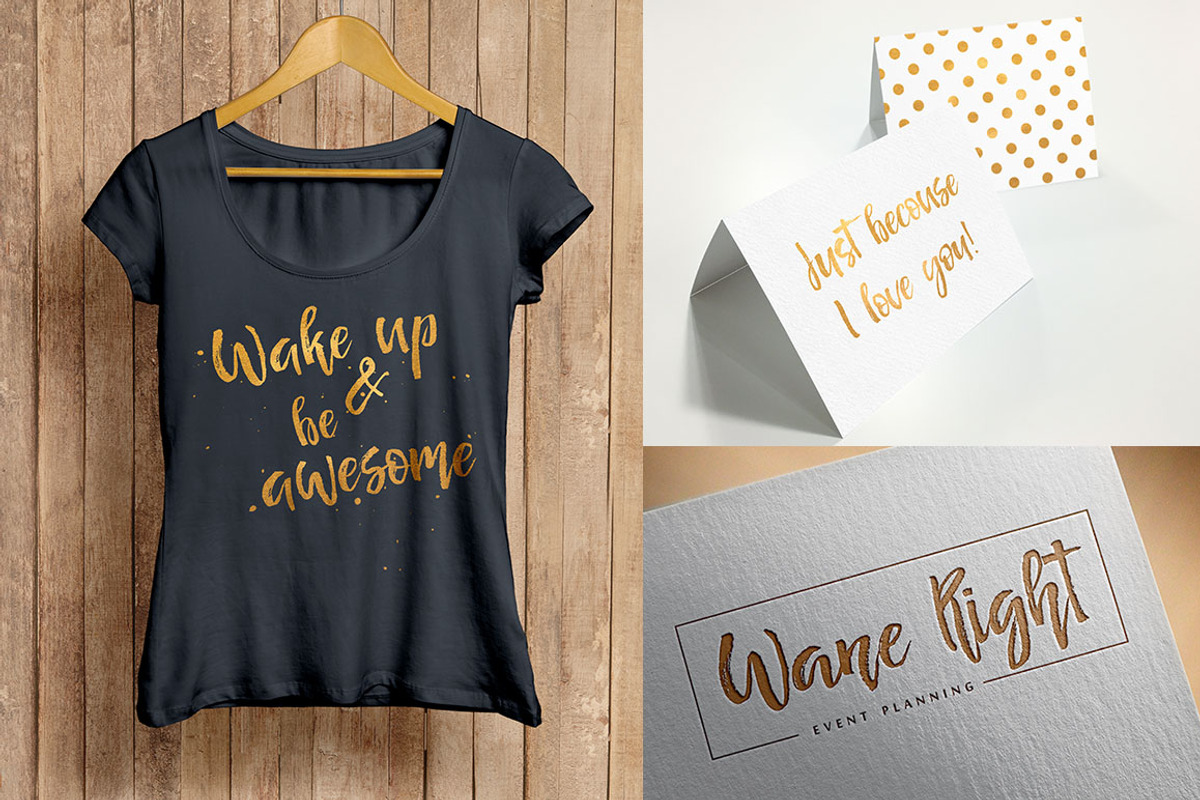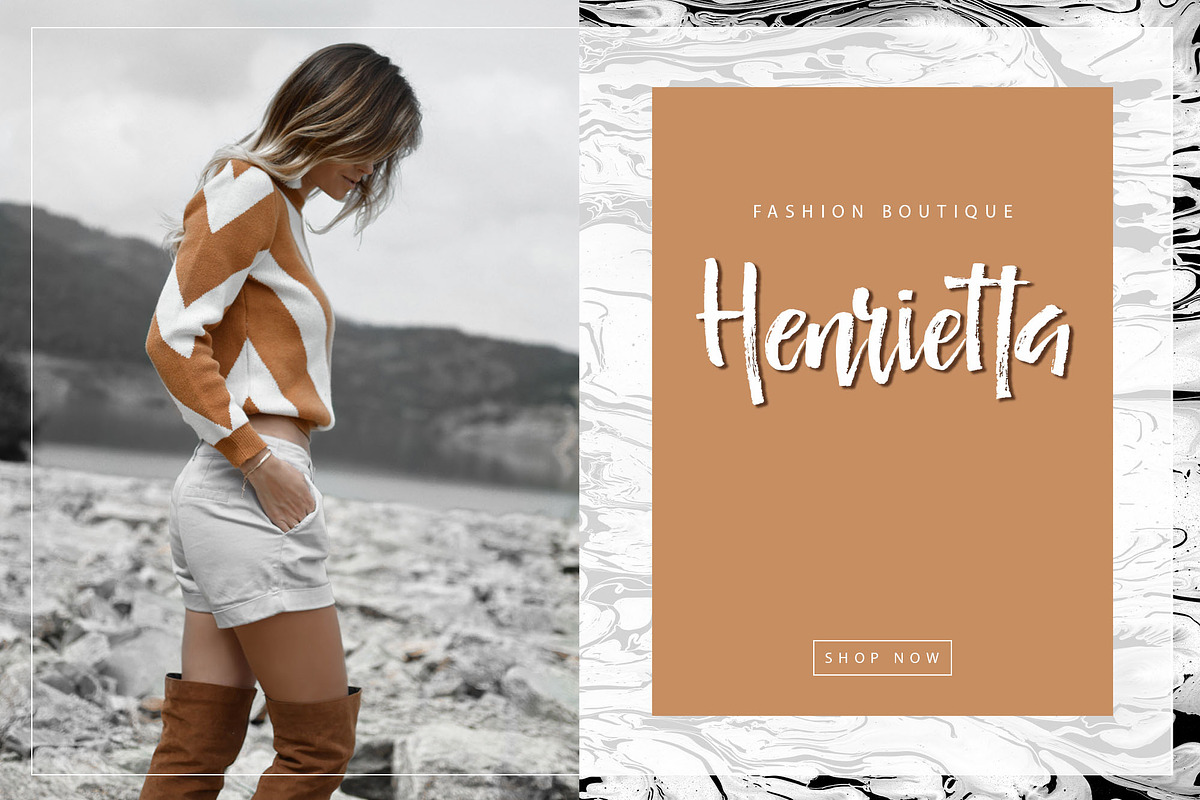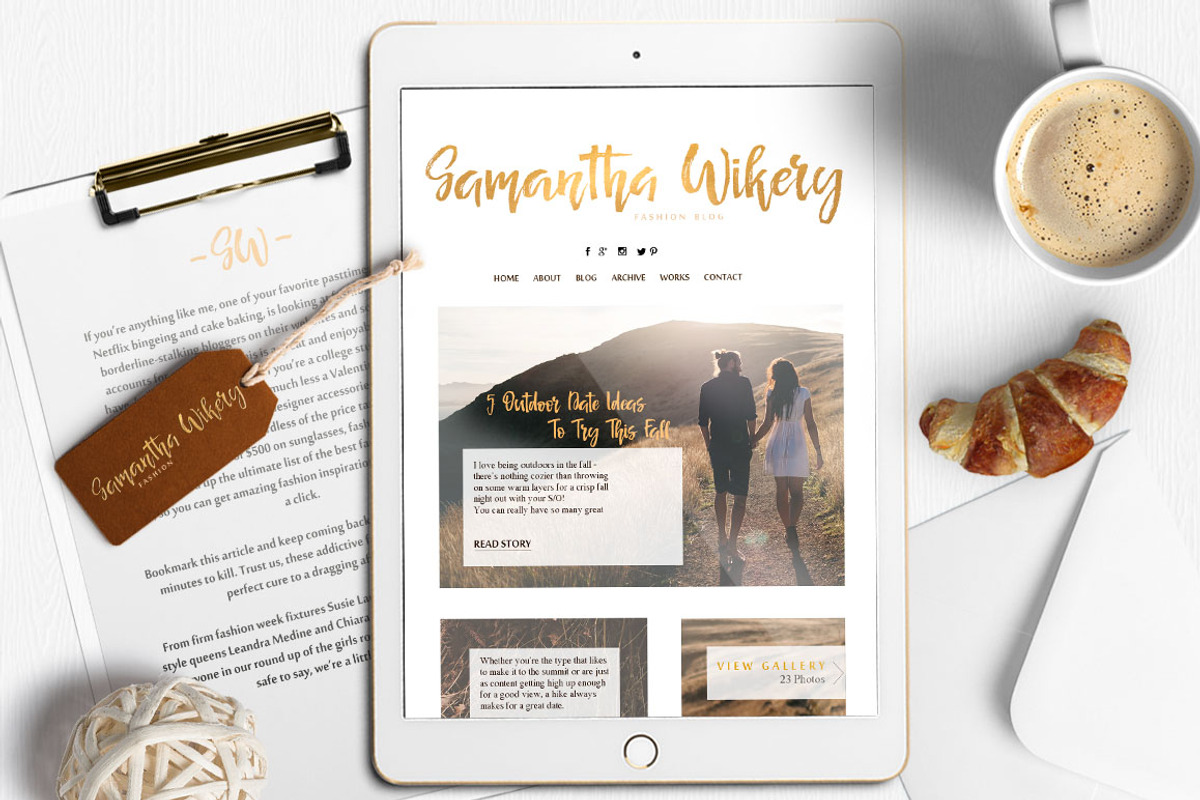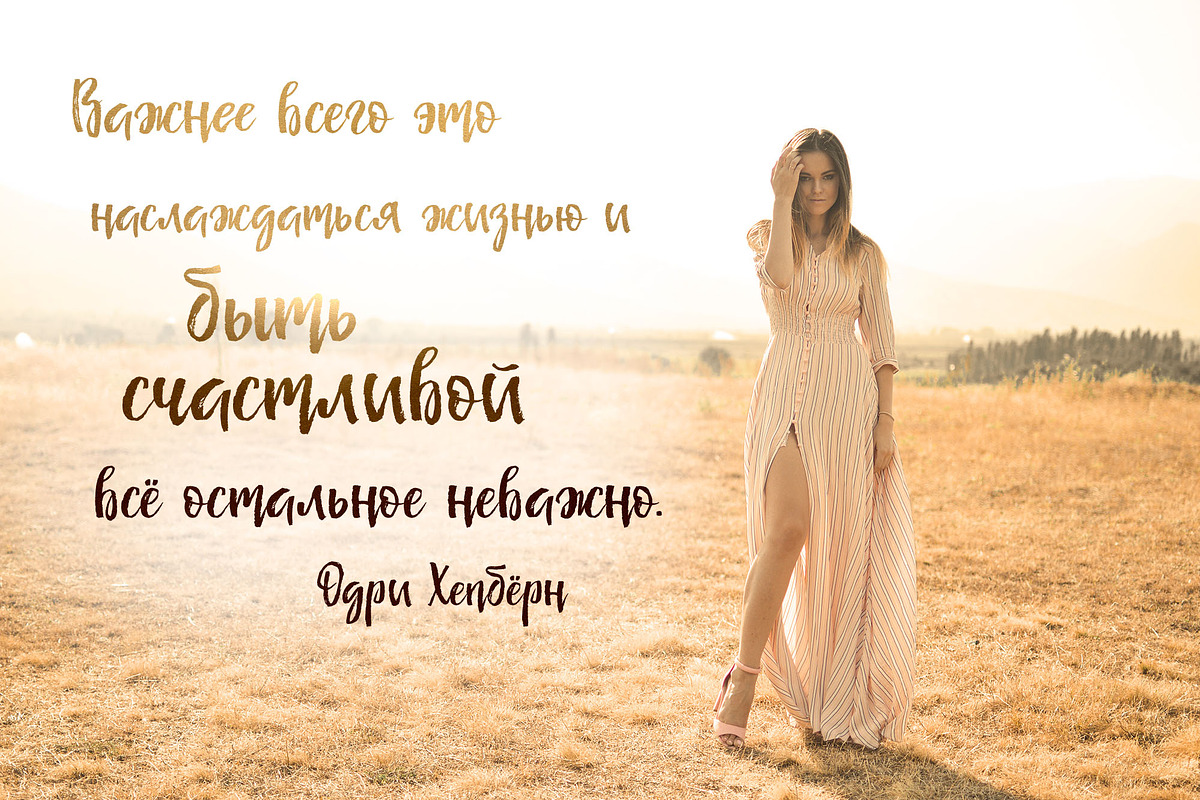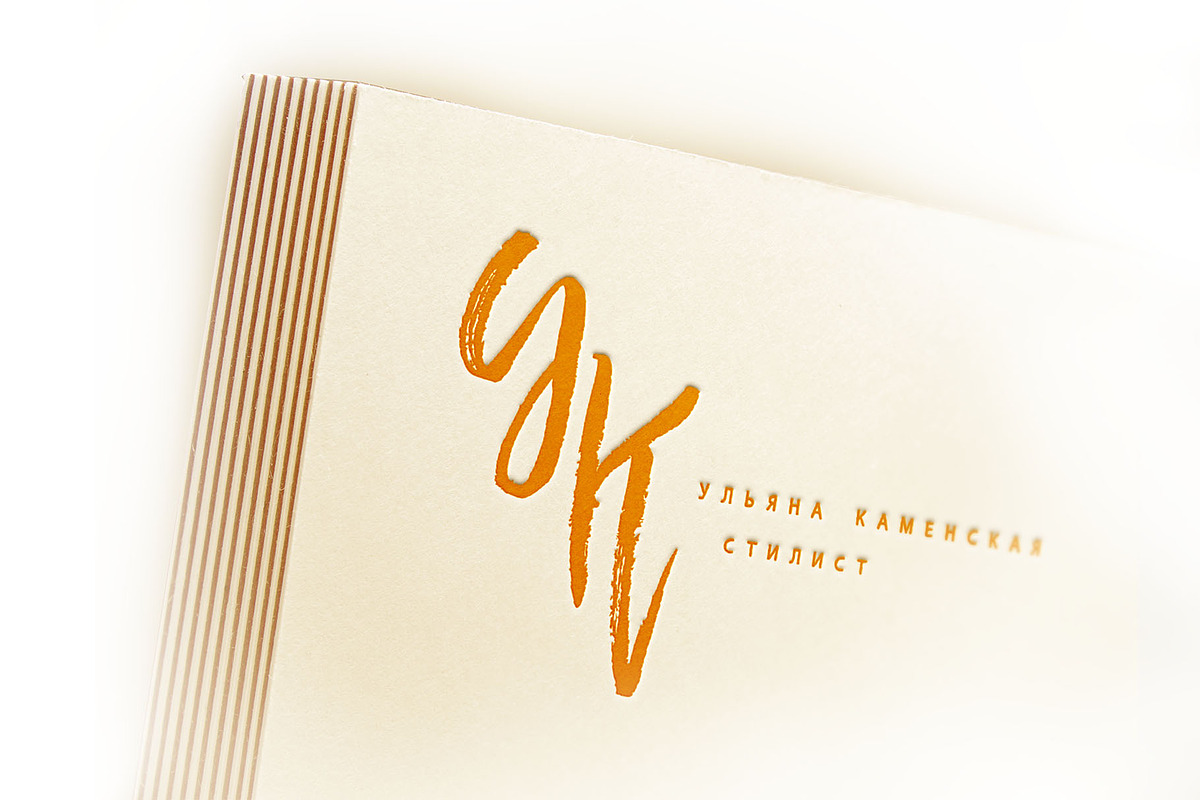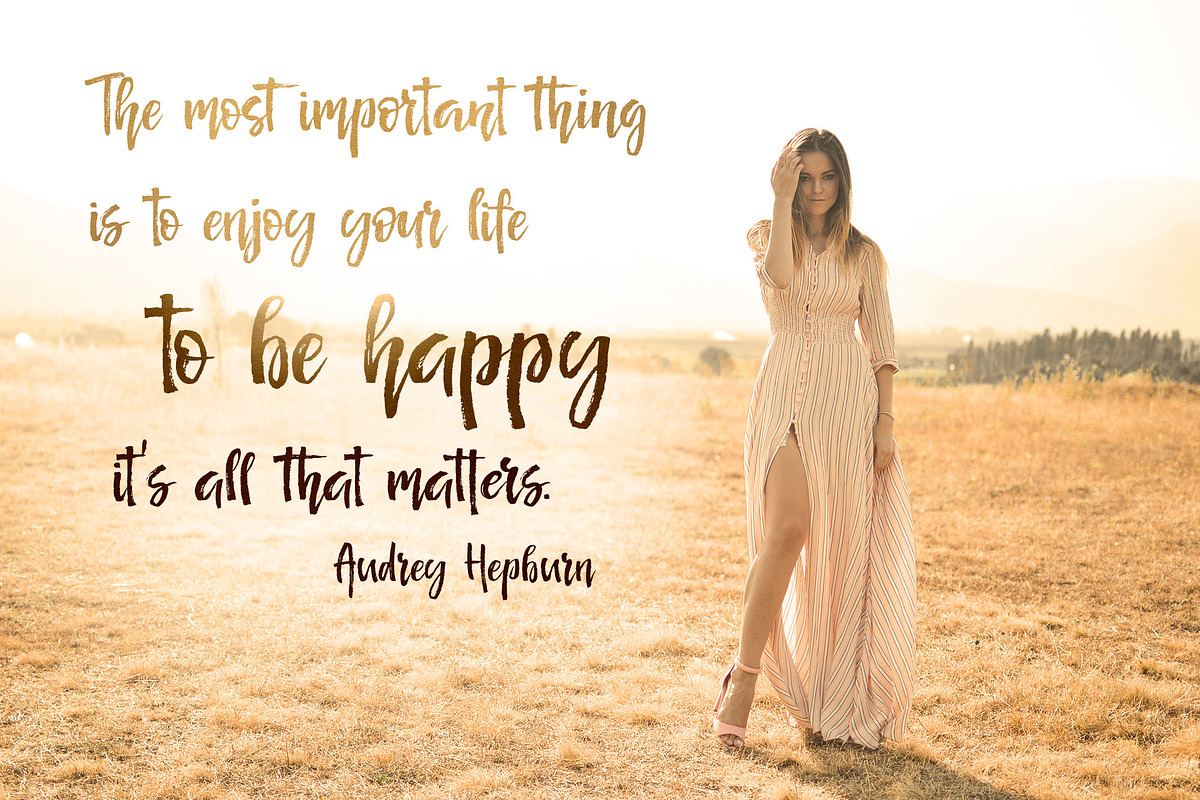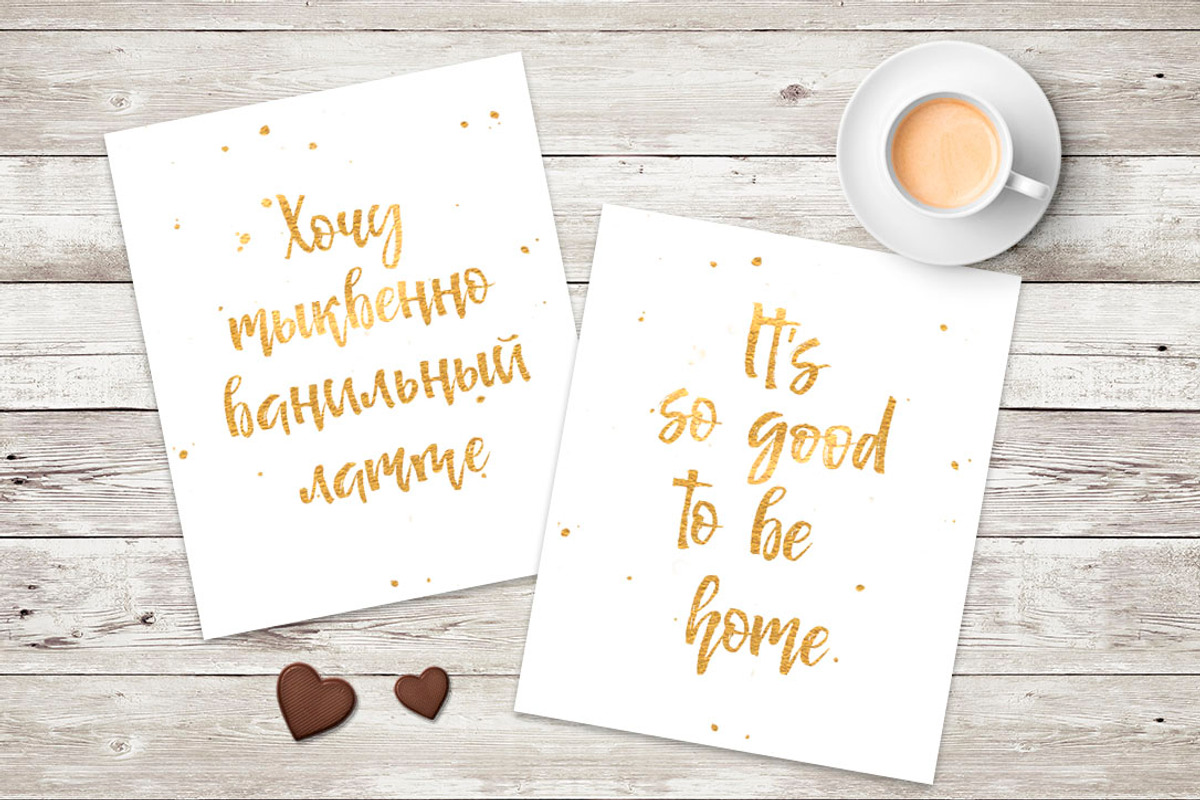
Señorita Cyrillic Script font
The hand-drawn script Señorita Cyrillic font was handwritten with a dry brush and will look great on branding design, posters, apparel, logotype, website header, fashion design, wedding card design, and more.
Hand-drawn script font Señorita contains a full set of uppercase letters and 2 full sets of lowercase letters and 43 ligatures - which can be used to create a handwritten calligraphy look. Use alternate lowercase and double-letter ligatures to create a perfect hand-painted look in your creations.
Multilingual Support for 32 languages: Latin glyphs for Afrikaans, Albanian, Basque, Bosnian, Catalan, Danish, Dutch, English, Estonian, Faroese, Filipino, Finnish, French, Galician, Indonesian, Irish, Italian, Malay, Norwegian Bokmål, Portuguese, Slovenian, Spanish, Swahili, Swedish, Turkish, Welsh, Zulu.
And Cyrillic glyphs support for Russian, Belorussian, Bulgarian, Ukrainian, and Kazakh languages. (Does font support more Cyrillic languages just type a message in the text box below and see if all characters you’ll need are there.)
- The Cyrillic part of the font contains the uppercase letters and lowercase letters and 17 ligatures, giving a realistic hand-lettered style.